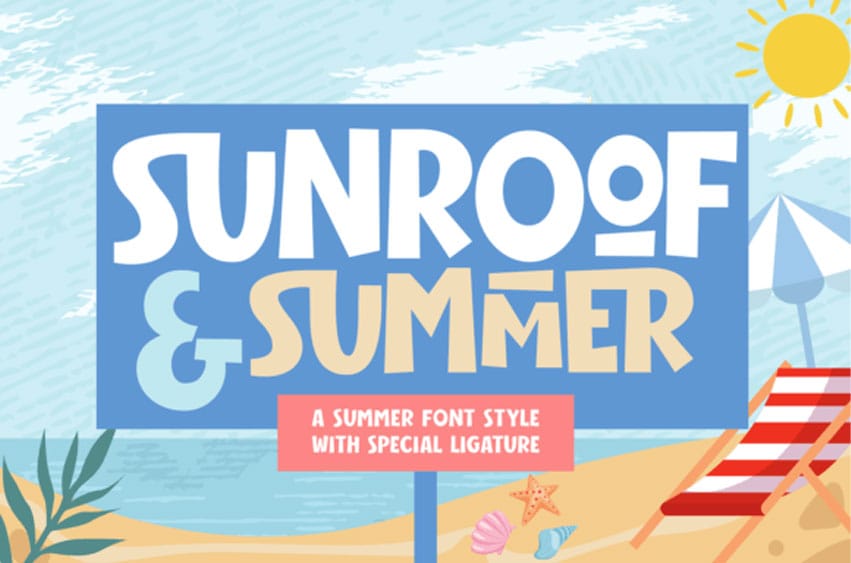
Sunroof & Summer Font is a summer Style font. It has a simple, fun, and sweet look.
Sunroof & Summer font is perfectly used for; logos, greeting cards, a package design, brand identity, craft design, any DIY project, book titles, and packaging.